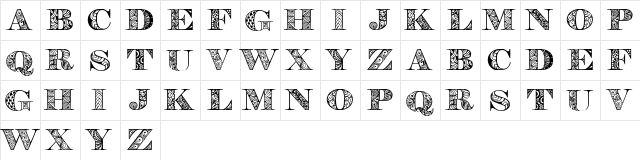
Digizen Regular
Design Context for Digizen Typeface
Digizen is a composed and adaptable typeface that performs quietly and consistently across a wide range of design contexts.